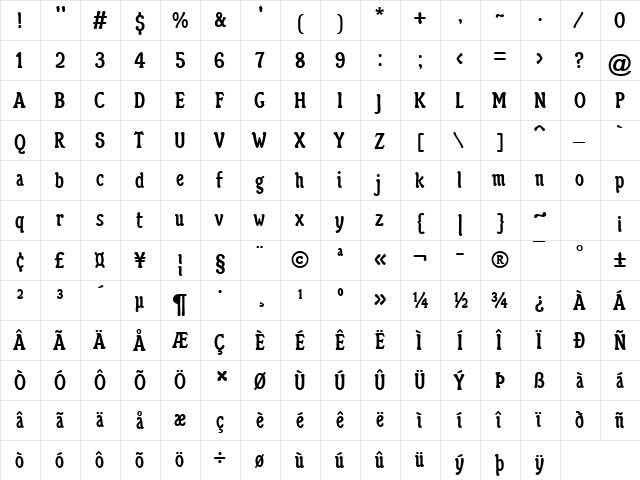
Theatre Antoine Regular
Design Context for Theatre Antoine Typeface
Theatre Antoine takes a measured approach to typography — its balanced proportions and neutral character make it a reliable workhorse for both digital and print work.